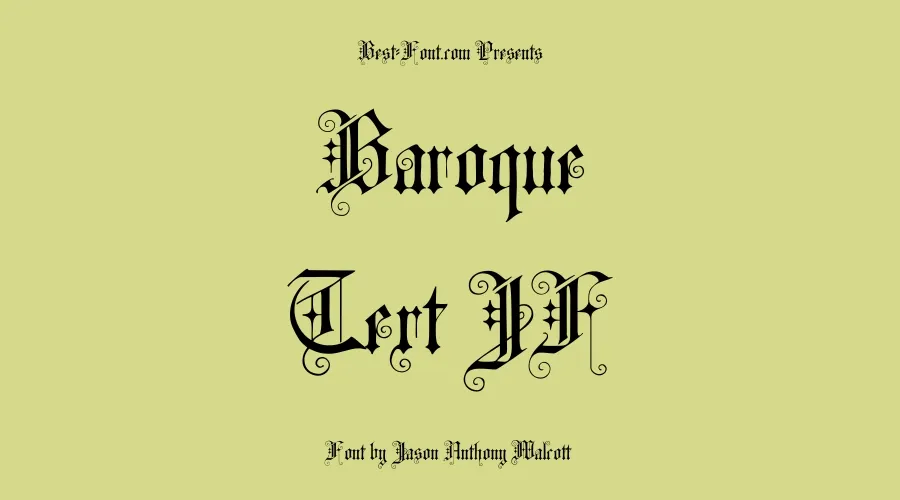
Baroque Text Jf Font
About Baroque Text Jf Font
Jason Anthony Walcott created Baroque Text Jf Font in the year 2003 and belongs to the fancy font family. It is a blackletter font inspired by the textured use in the famous book called "how to" book on calligraphy. There is no doubt that this typeface has flexible characters that will give you flawless results. Many alternatives can be paired with this font to enhance the beauty of the project.
Many people use this cozy font for their projects because it is great for creating unique designs. Witch font can be paired with this font because this typeface contains the best pairing nature and can make a good combination with other black lettering fonts.
This font is created with a single style that is comprised of all sets of characters, lowercase, uppercase, numbers, glyphs, and symbols which increases the demand for this typeface. This single font family also supports a large set of languages.
It also includes standard capitalization, variations, fashionable substitutes, and numbers. The font type can be used to create various CSS designs. An online font generator tool can also be used to create this type of design aesthetic.